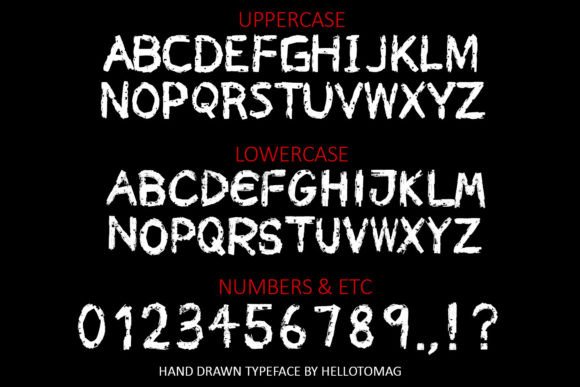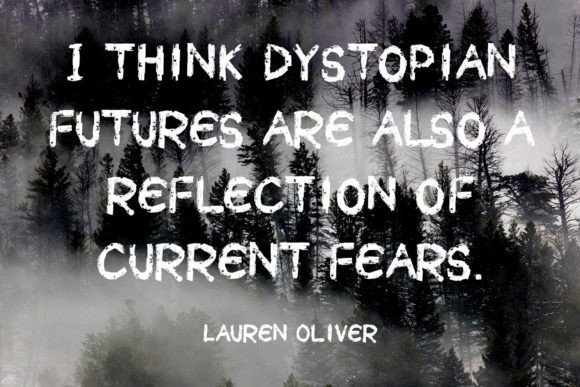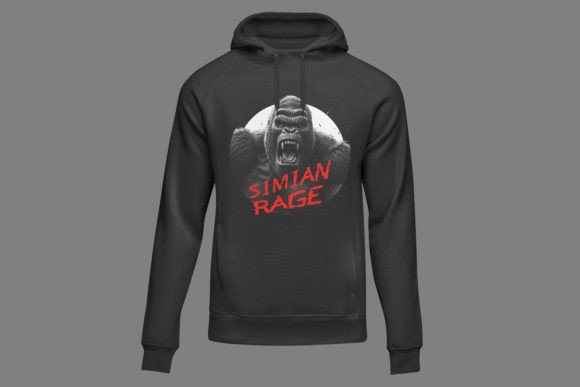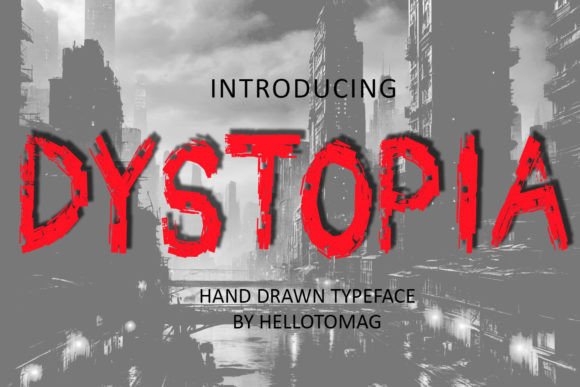
Introducing Dystopia Font: Unleash the Raw, Gritty Charm in Your Designs
In the realm of typography, few fonts manage to evoke a distinct emotional response like the Dystopia font. This unique, handwritten font is characterized by its rugged vibe, making it an excellent choice for designers looking to add a touch of grit and rawness to their creations. Whether you’re working on a chic logo, an eye-catching header, an inspirational quote, an elegant invitation, or a sleek letterhead, Dystopia font is sure to bring your ideas to life in a strikingly captivating way.
The Distinctive Features of Dystopia Font
What sets Dystopia font apart is its illusion of chiseled strokes, which gives it a gritty, raw aura. This textural charm is not just visually appealing but also incredibly versatile. The font’s rough, handmade quality makes it perfect for designs that aim to stand out from the crowd, conveying a sense of resilience and strength. The chiseled effect gives the letters a three-dimensional appearance, adding depth to any design.
One of the key advantages of Dystopia font is its versatility. It can seamlessly integrate into various design formats, including:
• Chic Logos: For businesses looking to make a bold statement, Dystopia font can help create a logo that is both memorable and impactful.
• Eye-Catching Headers: Add a magnetic touch to your website, blog, or advertising materials with headers that demand attention.
• Inspirational Printed Quotes: Give your motivational quotes a rugged yet uplifting feel that resonates with readers.
• Elegant Invitations: Surprisingly, Dystopia font can also add a unique charm to formal or informal event invitations, setting the tone for an unforgettable experience.
• Sleek Letterheads: Elevate your professional correspondence with a font that exudes confidence and creativity.
Bringing Your Ideas to Life
The Dystopia font is more than just a typeface; it’s a design element that can transform your creative projects. Its rough, textured style is sure to captivate your audience, leaving a lasting visual imprint. In a world where digital designs often look uniform and polished, Dystopia font offers a refreshing contrast. It adds a human touch to your designs, making them more relatable and engaging.
Why Designers and Crafters Love Dystopia Font
Designers and crafters appreciate fonts that offer both aesthetic appeal and practicality. Dystopia font checks all the boxes:
• Aesthetic Appeal: Its unique, chiseled look is unlike any other font, making it a standout choice for projects that require a distinctive touch.
• Practicality: Beyond its beauty, Dystopia font is highly versatile, suitable for a wide range of applications.
• Emotional Connection: The font’s gritty, raw aura can evoke strong emotions, making it perfect for designs intended to inspire, provoke thought, or challenge the status quo.
Dystopia font is a game-changer for designers and crafters looking to infuse their projects with a unique, rugged charm. Its chiseled strokes and raw aura lend a magnetic touch to any design, ensuring that your creative ventures stand out in a crowded digital landscape. Whether you’re aiming to create a bold logo, craft inspirational content, or design elegant invitations, Dystopia font offers the perfect blend of grit and style. Experience the transformative power of Dystopia font and bring your ideas to life in a way that’s both strikingly captivating and memorably impactful.